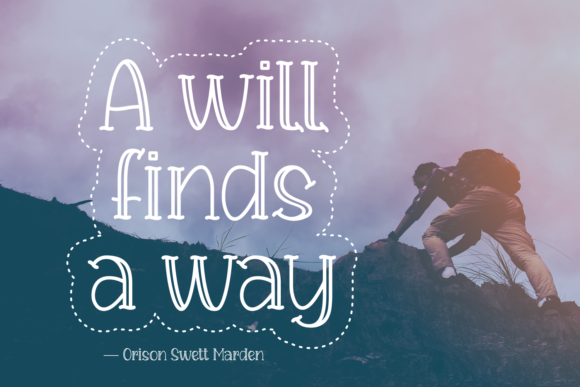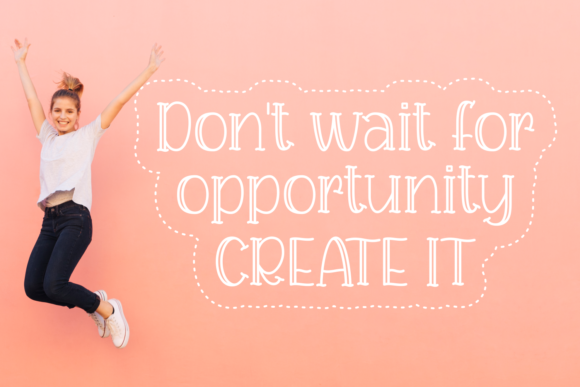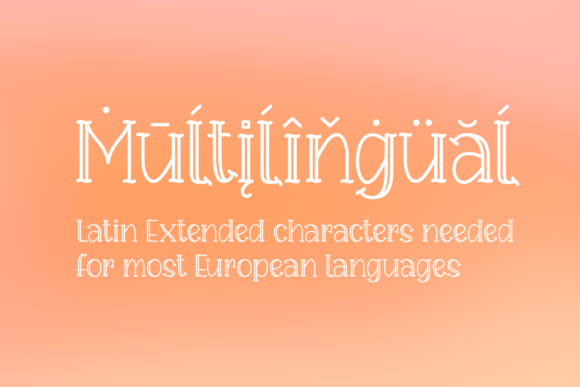
Discover the Power of Typography: Why Do The Best Font Stands Out
In the world of design, typography plays a crucial role in conveying messages, evoking emotions, and creating lasting impressions. Among the numerous fonts available, Do The Best font has emerged as a game-changer, offering a unique blend of elegance and versatility. In this article, we’ll explore the features, benefits, and applications of Do The Best font, and why it’s an indispensable asset for designers and crafters.
The Elegance of Do The Best Font
Do The Best is an elegant and distinct display font that has been carefully crafted to make a statement. Its refined lines, precise curves, and harmonious proportions create a visually stunning effect that’s sure to captivate audiences. Whether you’re working on a branding project, advertising campaign, or editorial content, this font is designed to elevate your creations and leave a lasting impression.
Versatility Unleashed
One of the standout features of Do The Best font is its incredible versatility. Regardless of the topic or theme, this font seamlessly adapts to any design context, ensuring that your message is conveyed with clarity and style. From fashion and beauty to technology and finance, Do The Best font is an incredibly asset to your fonts’ library, allowing you to experiment with different creative directions and explore new ideas.
So, what makes Do The Best font an attractive choice for designers and crafters? Here are just a few benefits:
• Unique Visual Identity: Do The Best font helps you create a distinctive visual identity that sets your brand or project apart from the competition.
• Elegance and Sophistication: This font adds a touch of elegance and sophistication to your designs, making them more engaging and memorable.
• Flexibility: Do The Best font is suitable for a wide range of applications, from digital media to print materials, and can be used in various languages.
• Easy to Read: Despite its elegant appearance, this font remains highly legible, ensuring that your message is conveyed clearly and effectively.
Applications of Do The Best Font
The possibilities are endless when it comes to using Do The Best font. Here are some examples of how you can apply this versatile font:
• Branding and Logo Design: Create a lasting impression with a custom logo or brand identity that showcases your unique personality.
• Advertising and Marketing: Use Do The Best font to create eye-catching ads, brochures, and promotional materials that grab attention.
• Editorial and Publishing: Add a touch of elegance to your editorial content, such as magazines, newspapers, and books.
• Digital Media: Apply Do The Best font to your website, social media, or mobile app to create a cohesive and engaging user experience.
In conclusion, Do The Best font is a powerful tool that can elevate your designs and take your creativity to the next level. Its unique blend of elegance, versatility, and legibility makes it an indispensable asset for designers and crafters. Whether you’re working on a personal project or a client’s brief, this font is sure to make a lasting impression. So, why settle for ordinary typography when you can do the best? Discover the power of Do The Best font today and unlock a world of creative possibilities.